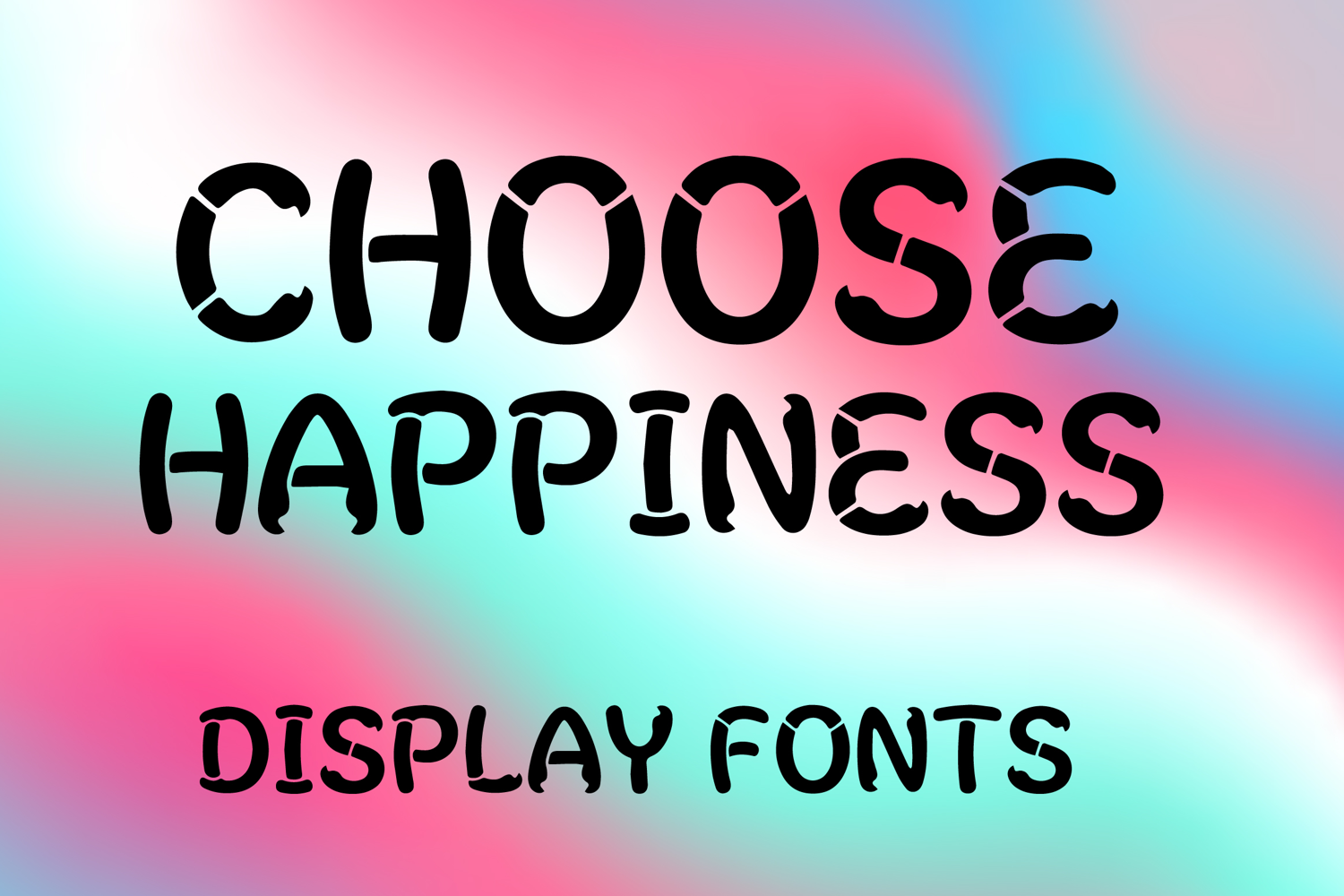
CHOOSE HAPPINESS
CHOOSE HAPPINESS is a playful display font with a bold handcrafted style and cheerful modern character. Its uppercase letterforms feature rounded strokes, quirky cut details, and slightly irregular shapes that create a fun, friendly, and eye-catching look. Designed with uppercase letters A–Z and numbers 0–9, CHOOSE HAPPINESS is perfect for branding, posters, packaging, invitations, logos, social media graphics, and creative projects that need a joyful and memorable statement.